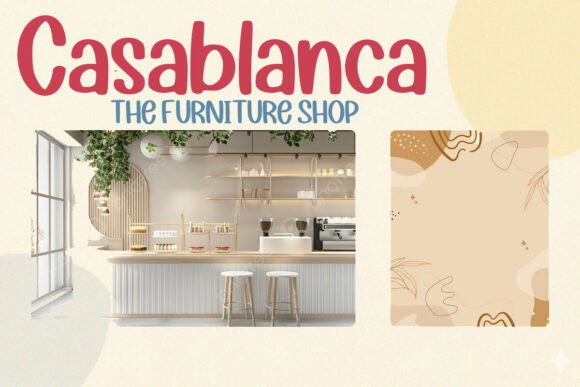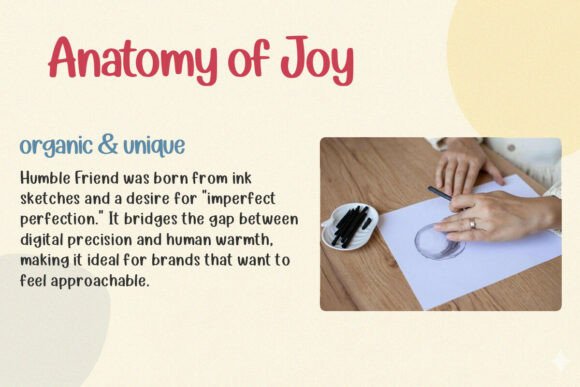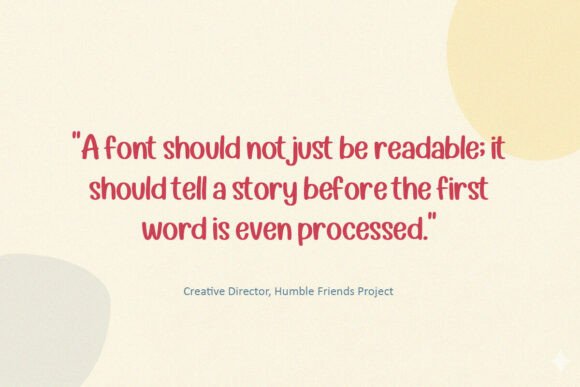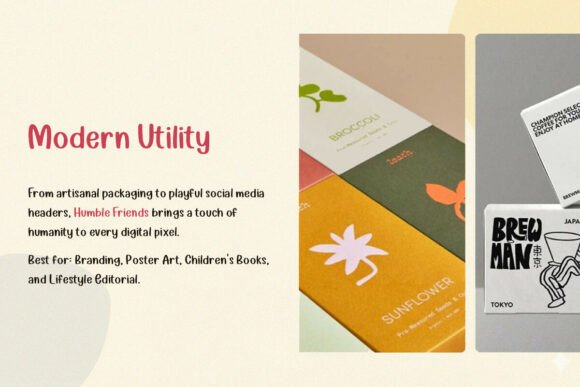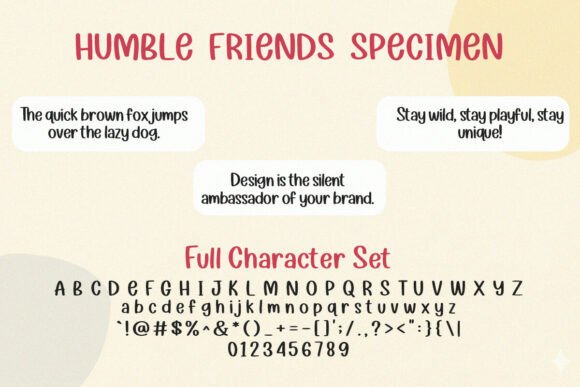
Discovering the Perfect Blend of Whimsy and Warmth
As designers, we’ve all been there – staring at a blank page, trying to capture the essence of a project in just the right words. And then, it hits us – the perfect font that brings our vision to life. For me, that moment came when I stumbled upon the Humble Friends Font. Created by Struggle Studio, this charming display font embodies the warmth and friendliness we all strive for in our creative endeavors.
With its rounded terminals, soft organic feel, and handcrafted strokes, Humble Friends Font is a game-changer for designers seeking to add a touch of personality to their projects. Whether you’re working on children’s book covers, social media graphics, or packaging for artisan products, this font is sure to bring a smile to your face and a sense of approachability to your audience.
Humble Friends Font Key Features
- Font Family: Humble Friends Font is a unique, hand-drawn font designed to evoke a sense of warmth and approachability. It features a range of styles, from casual to elegant.
- Unique Characteristics: Humble Friends Font features a range of unique characteristics, including subtle texture and imperfections that give it a hand-crafted feel.
- Characters: The font includes a comprehensive set of characters, including uppercase and lowercase letters, numbers, and punctuation marks.
Humble Friends Font Review
I was excited to dive into the Humble Friends Font, and overall, it’s a solid choice for designers looking for a friendly, approachable font.
- Approachable feel: The font has a warm, inviting personality that’s perfect for projects that need to convey a sense of friendliness or approachability.
- Good legibility: The font is easy to read, even at smaller sizes, making it a great choice for body text or small print.
- Neutral tone: The font’s neutral tone makes it a great choice for projects that need to appeal to a wide audience.
- Lack of bold/italic styles: The font is limited to a single weight and style, which may not be ideal for projects that require emphasis or contrast.
- Not ideal for headlines: While the font is great for body text, it may not be the best choice for headlines, as it can feel a bit too subtle.
- Not highly customizable: The font’s design is quite straightforward, which may not be ideal for designers who want more flexibility in terms of customization.
The Humble Friends Font is a solid choice for designers who need a friendly, approachable font for body text or small print. While it has some limitations, it’s a great option for projects that require a neutral tone and good legibility.
Getting the Most Out of the Humble Friends Font
Use the Humble Friends Font to create a warm and inviting atmosphere in your designs. Pair it with earthy tones and natural textures to create a cohesive look.
Experiment with different font sizes and styles to add visual interest to your designs.
Use the Humble Friends Font for titles, headings, and body text to create a consistent look throughout your design.
Use the Humble Friends Font for:
Brand identities and logos
Marketing materials and brochures
Website design and content
Social media graphics and posts